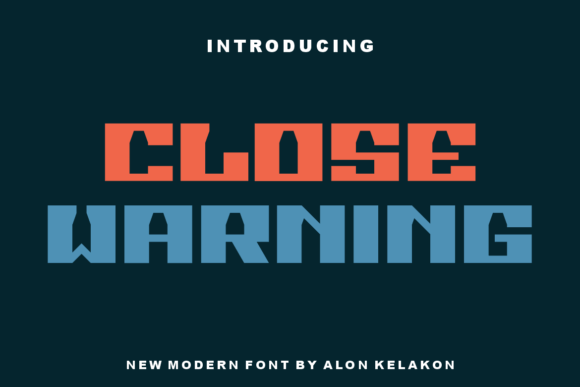
Introducing Close Warning Font: The Ultimate Sans Serif for Bold Designs
Are you tired of using the same old fonts for your designs? Look no further! Close Warning Font is here to revolutionize the way you create labels, clothing, movie scenes, posters, movie titles, gigs, album covers, logos, and more. This unique and bold sans serif font is ready to use and is sure to make your designs stand out from the crowd.
What is Close Warning Font?
Close Warning Font is a carefully crafted sans serif font that exudes confidence and style. Its bold and edgy design makes it perfect for creating eye-catching designs that demand attention. Whether you’re a designer, crafty DIY enthusiast, or a business owner looking to create a unique brand identity, Close Warning Font is the perfect choice.
Key Features of Close Warning Font
• Unique and Bold Design: Close Warning Font boasts a distinctive and striking design that sets it apart from other fonts.
• Sans Serif: The clean and minimalist sans serif design makes it perfect for modern and edgy designs.
• Ready to Use: Close Warning Font is ready to use for a variety of design projects, including labeling, clothing, movie scenes, posters, movie titles, gigs, album covers, logos, and more.
• High-Quality: The font is designed with high-quality and precision, ensuring that it looks great in any size or resolution.
Use Cases for Close Warning Font
Close Warning Font is an incredibly versatile font that can be used for a wide range of design projects. Here are some ideas to get you started:
• Labeling: Create eye-catching labels for products, files, or folders with Close Warning Font.
• Clothing: Design bold and stylish t-shirts, hoodies, or hats with this font.
• Movie Scenes: Add a touch of drama and excitement to your movie scenes with Close Warning Font.
• Posters: Create striking posters for events, concerts, or marketing campaigns.
• Movie Titles: Make your movie titles stand out with this bold and attention-grabbing font.
• Gigs: Design eye-catching posters or flyers for gigs, concerts, or live events.
• Album Covers: Create bold and stylish album covers that reflect the music and style of the artist.
• Logos: Use Close Warning Font to create unique and memorable logos for businesses or brands.
Benefits of Using Close Warning Font
So, why choose Close Warning Font for your design projects? Here are some benefits to consider:
• Stand Out from the Crowd: With Close Warning Font, you can create designs that stand out from the crowd and grab attention.
• Professional Look: The font’s high-quality design gives your projects a professional and polished look.
• Easy to Read: The sans serif design makes it easy to read, even at small sizes.
• Versatile: Close Warning Font can be used for a wide range of design projects, making it a great addition to your font library.
In conclusion, Close Warning Font is a unique and bold sans serif font that’s perfect for designers, crafty DIY enthusiasts, and business owners looking to create eye-catching designs. With its high-quality design, versatility, and ease of use, this font is sure to become a staple in your design toolkit. So why wait? Download Close Warning Font today and start creating bold and stylish designs that demand attention!